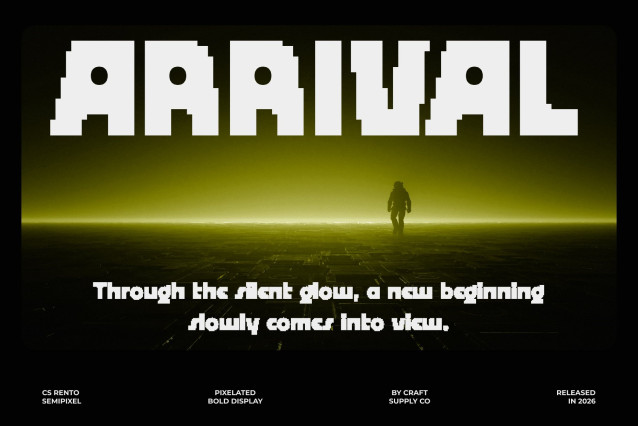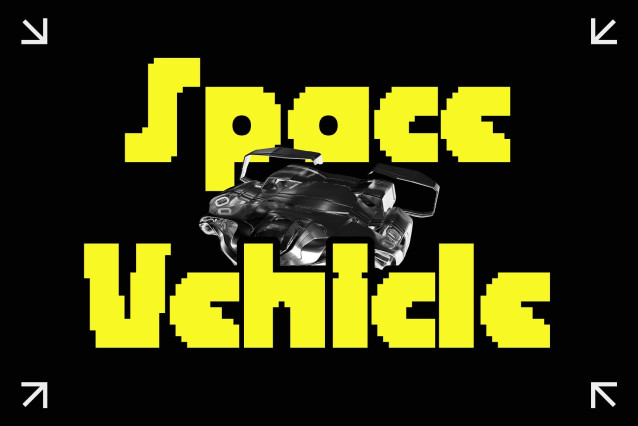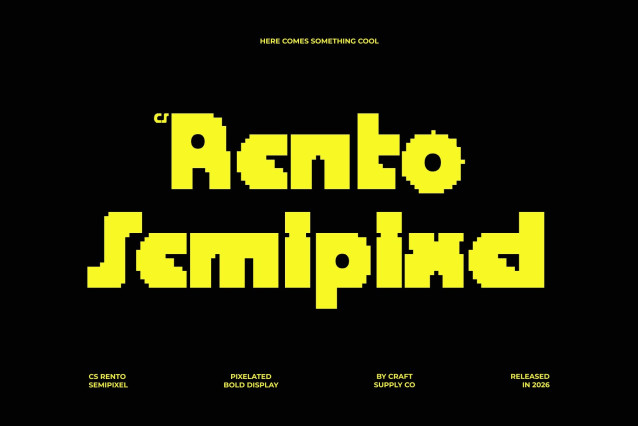
CS Rento Semipixel – Bold Display Font: Where Geometric Strength Meets Smooth Retro-Digital Style
Strong Geometric Forms with Bold Visual Clarity
This is a bold display font built from strong geometric shapes enhanced with pixel-based detailing. Its thick contemporary structure creates a commanding visual identity filled with confidence, clarity, and modern digital energy. Every character feels impactful and highly readable, making the font perfect for display compositions that demand attention and visual memorability.
Semipixel Style with Smooth Pixel Geometry
This font combines pixel-inspired square forms with modern curves and refined details. Unlike traditional rigid pixel fonts, its softened construction creates a smoother and cleaner appearance while preserving the nostalgic spirit of retro digital typography. This balance gives the font a calm futuristic feel blended with retro-digital charm.